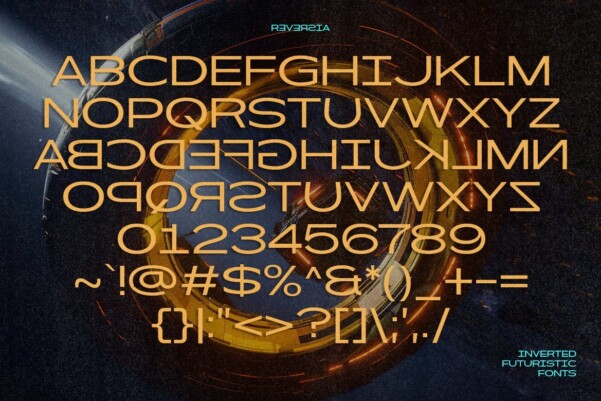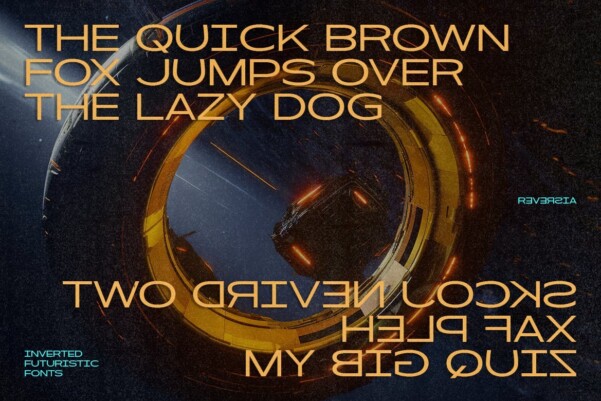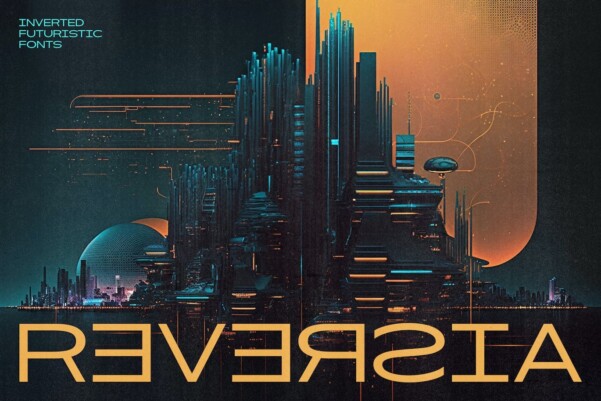
Reversia Font
Reversia Font! Let your designs tell a story of innovation and uniqueness with our stunning inverted fonts. Whether it’s for branding, advertising, or artistic expression, Reversia fonts will make your work stand out from the rest. Embrace the bold and join the league of creatives who shape the future of design!